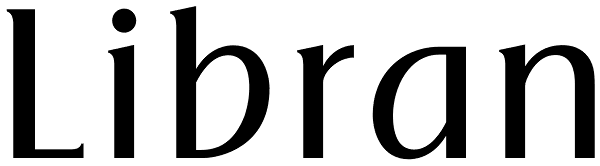
Libran
Libran and Libran Small Caps provide surprising legibility at all sizes but perform best in semi-display situations. The broad, open counters on a, e and o make for easy reading with a touch of classic roman clarity. The diminutive serifs add a...